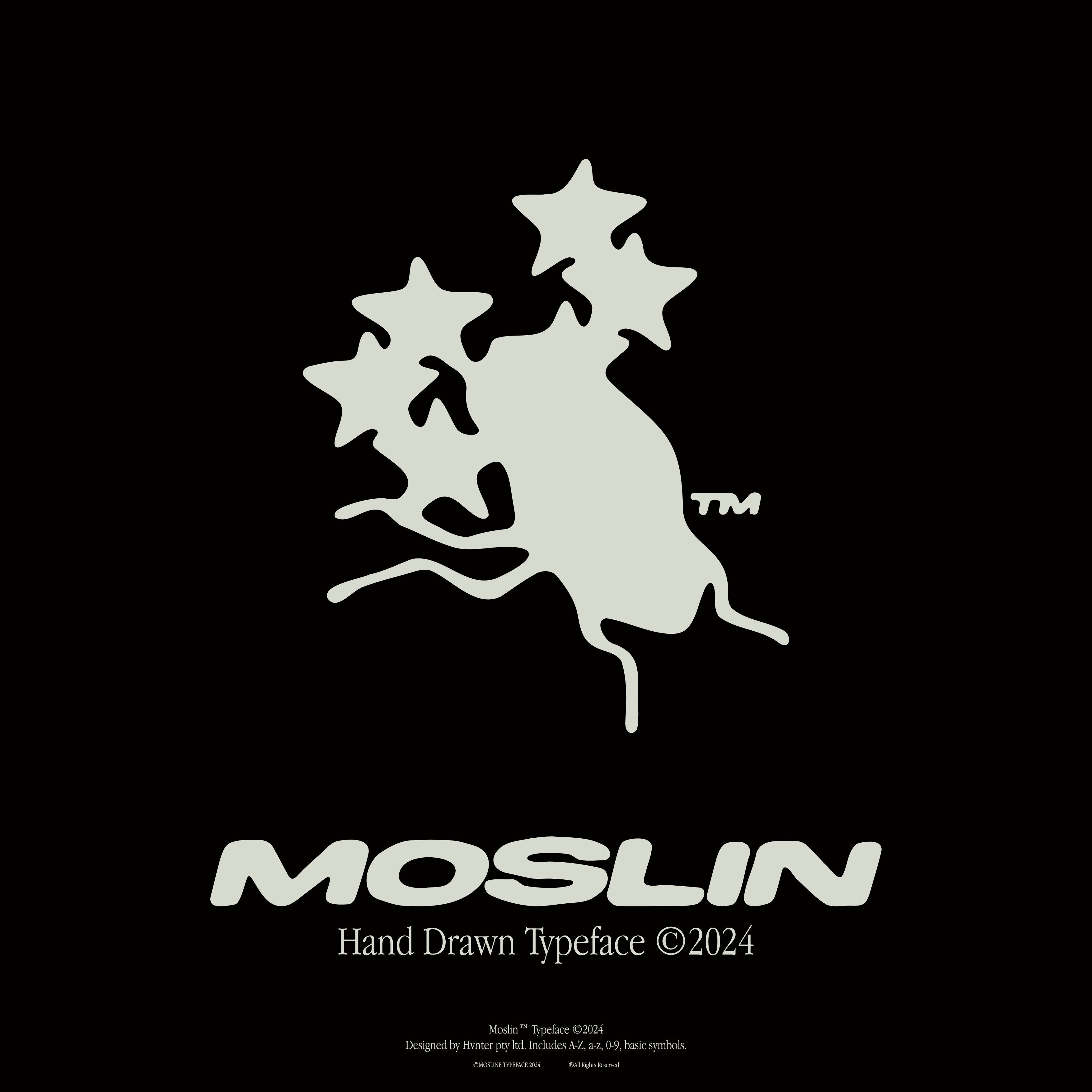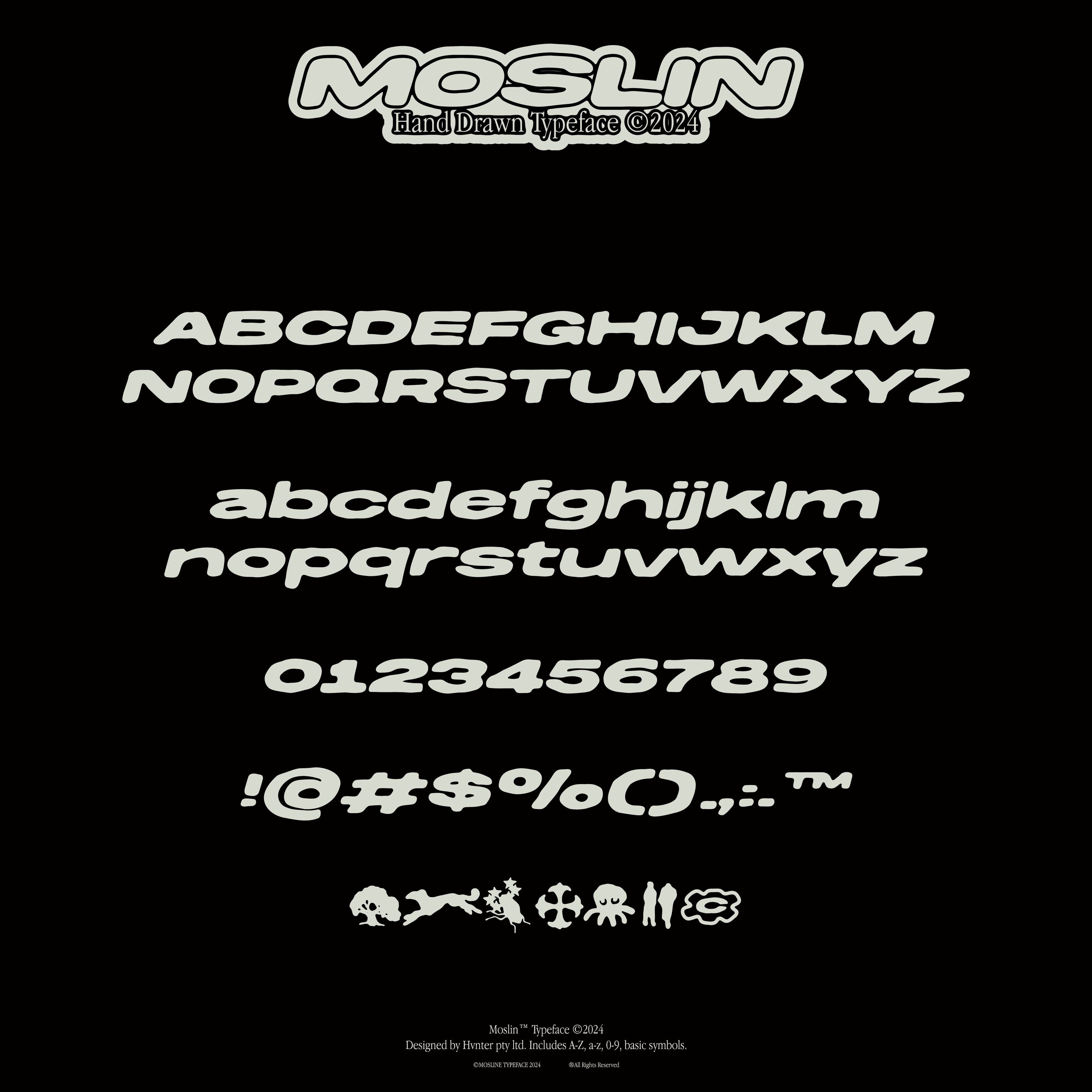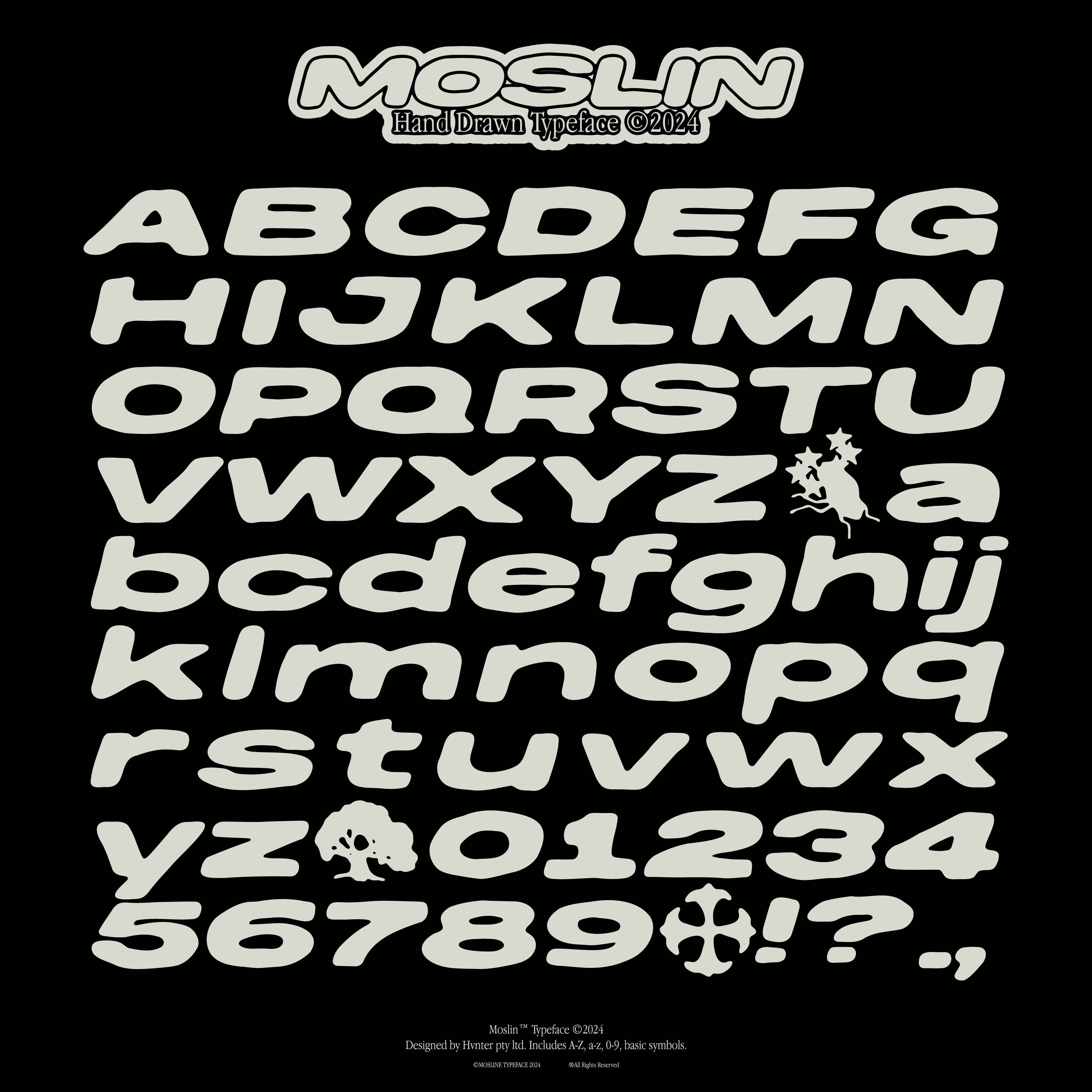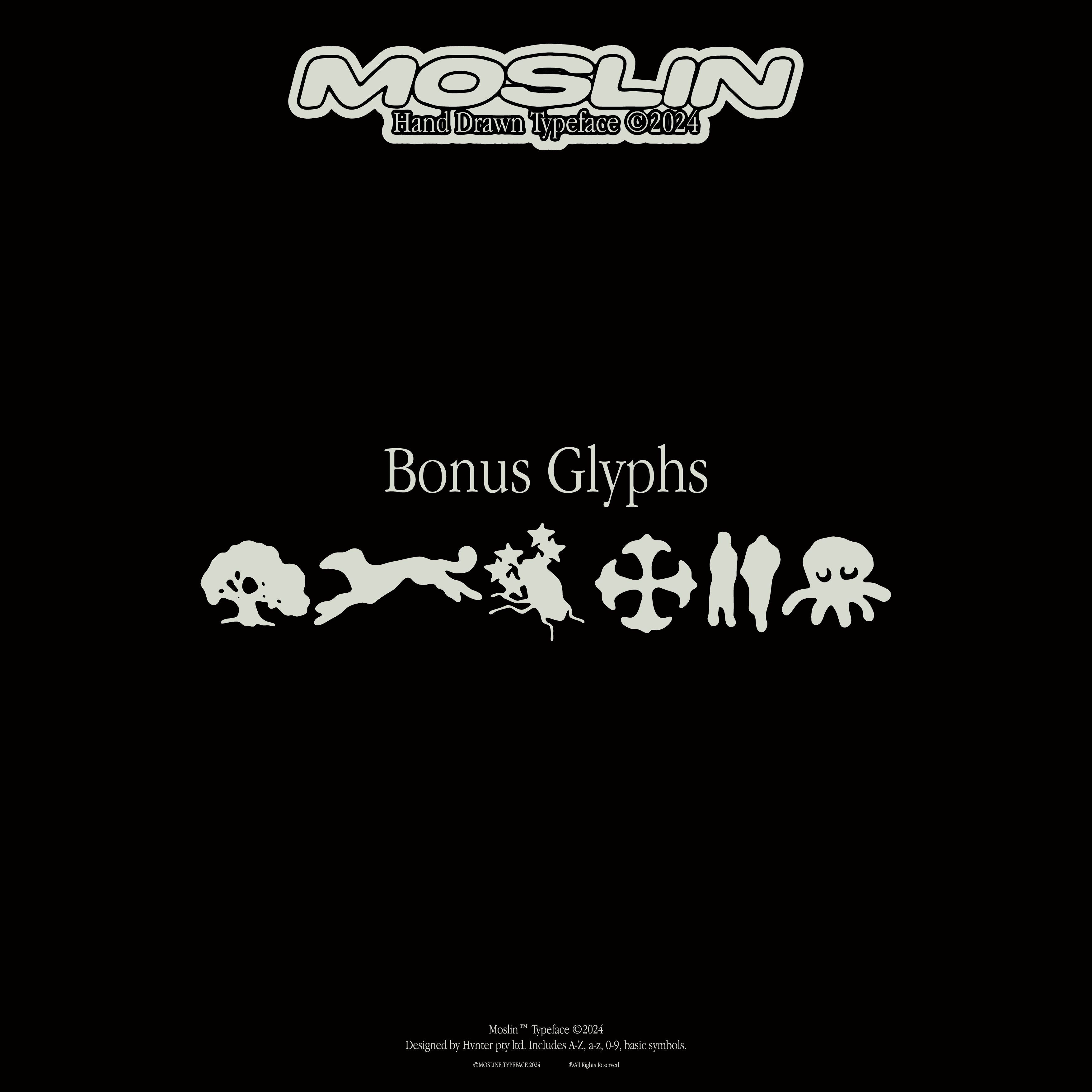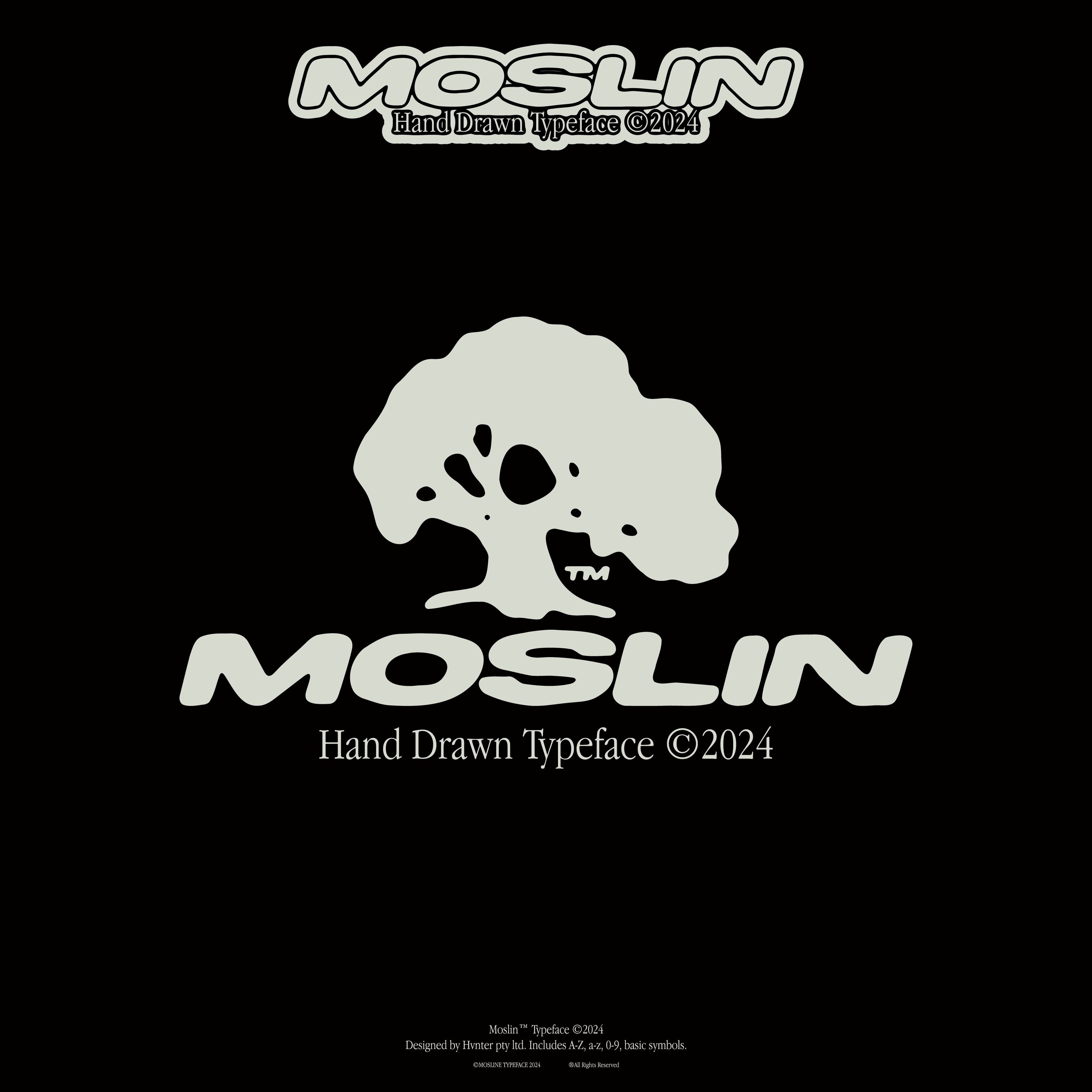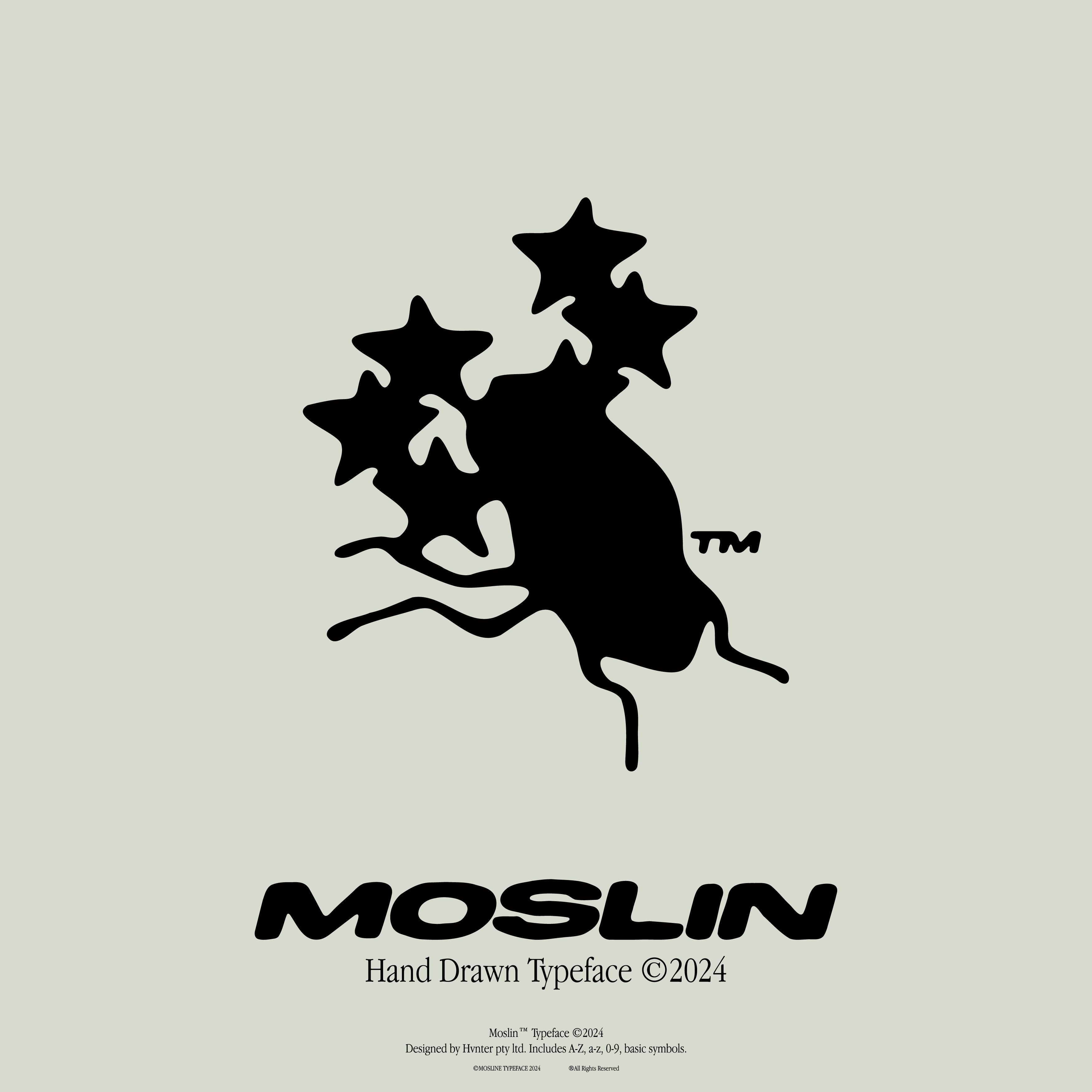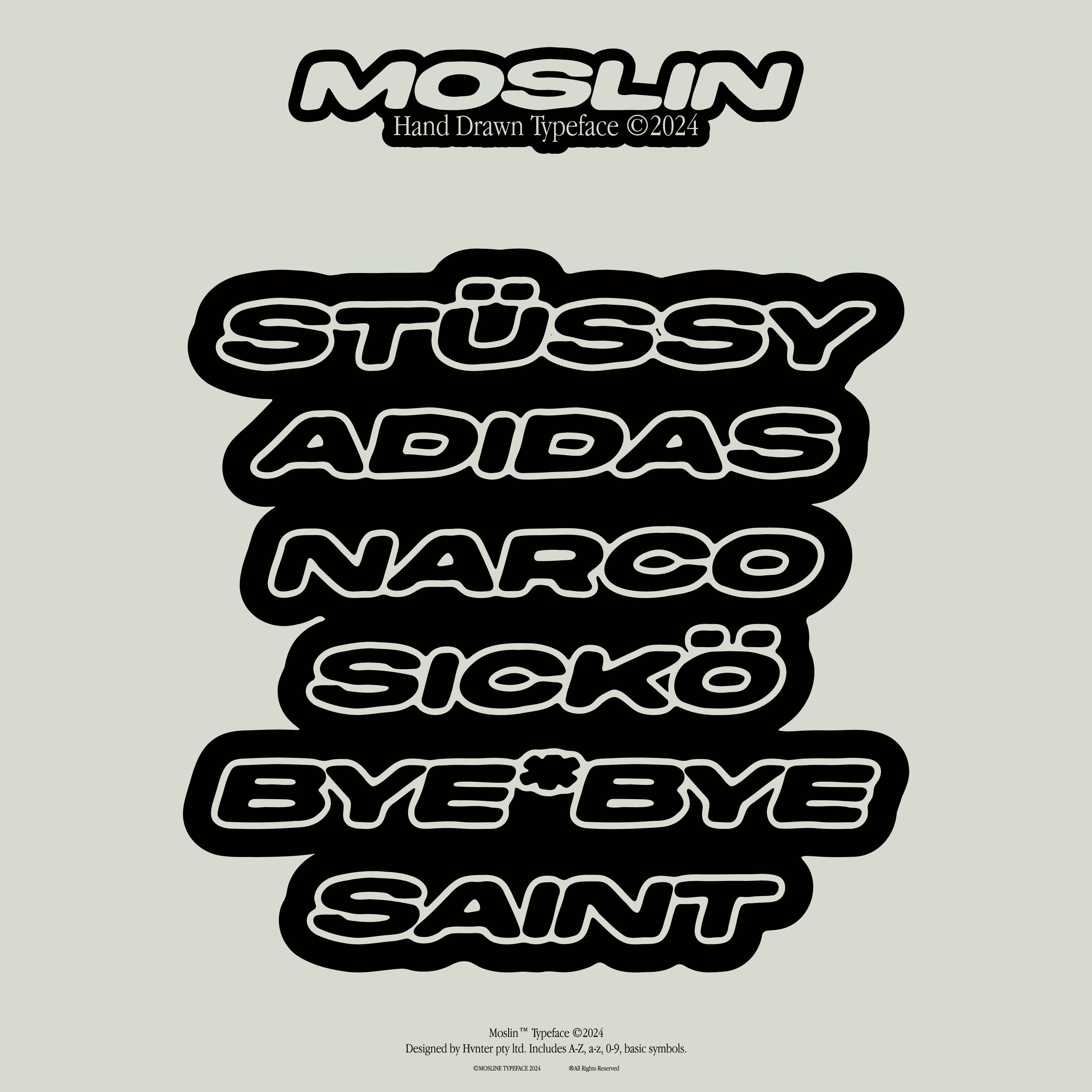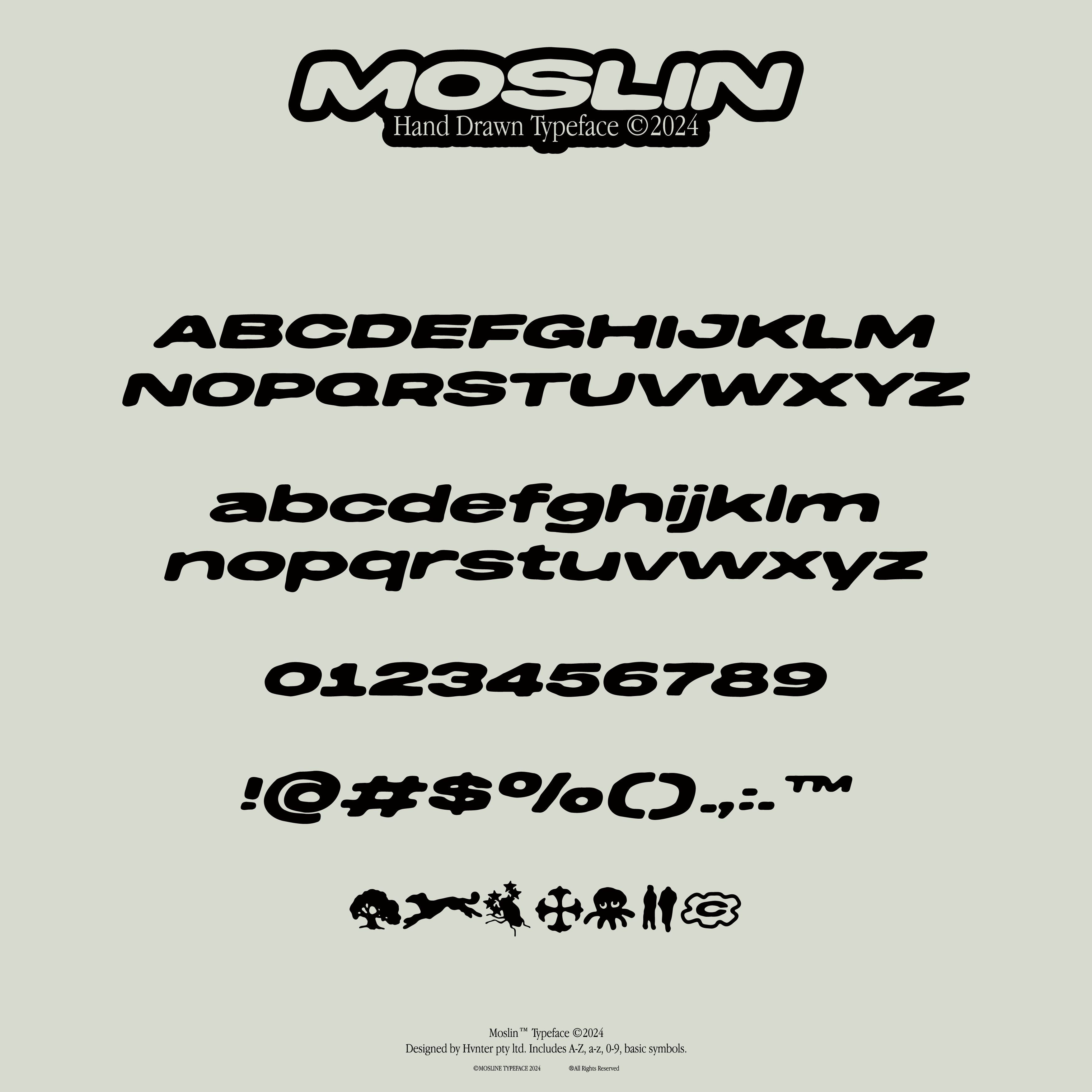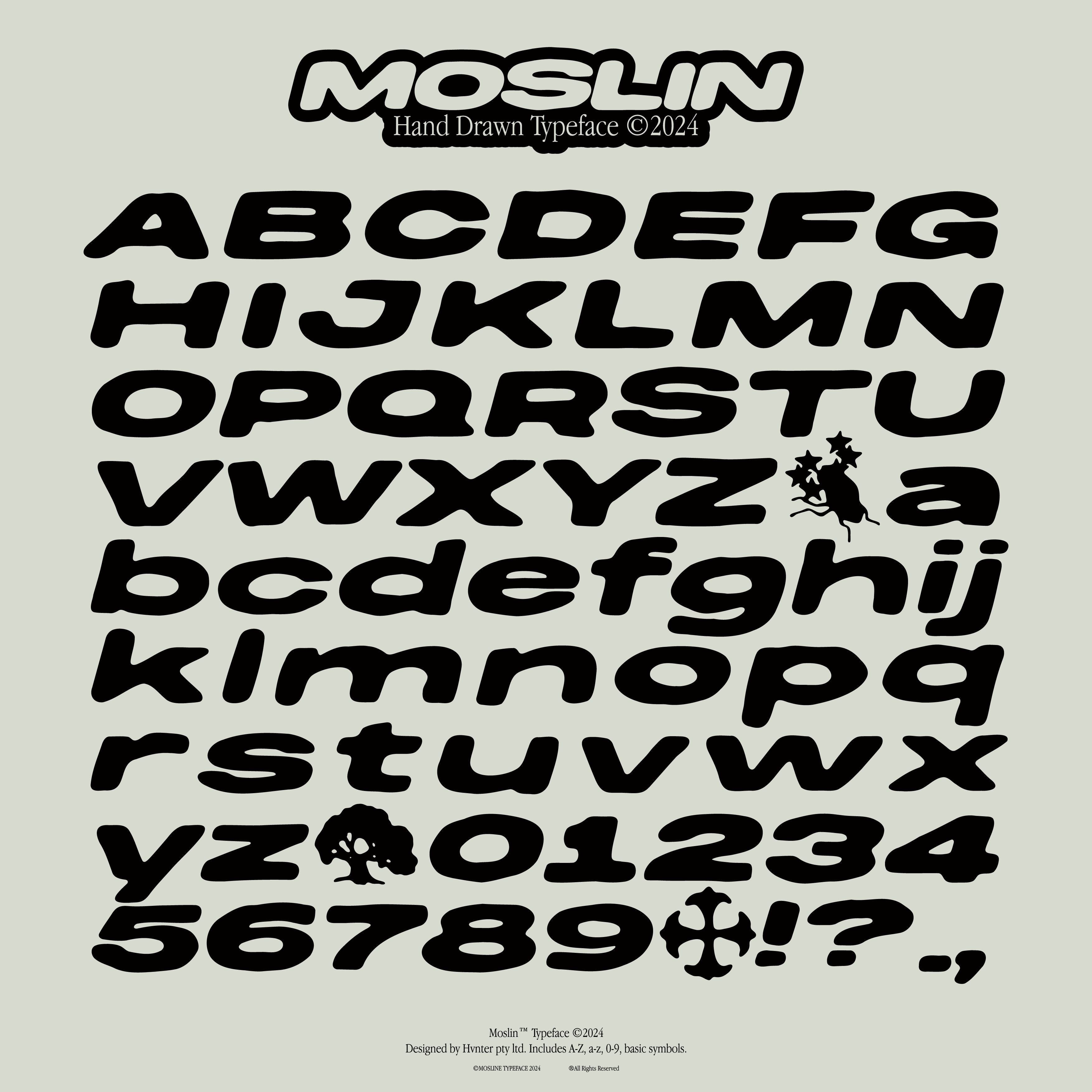
Moslin Typeface
Moslin: Hand drawn typeface.
Includes A-Z, a-z, 0-9, basic symbols + bonus glyphs. (All shown in images)
The Moslin Typeface is a hand-drawn typeface that includes a complete set of characters (A-Z, a-z, 0-9), basic symbols, and bonus glyphs. It is characterized by its bold, grunge style.